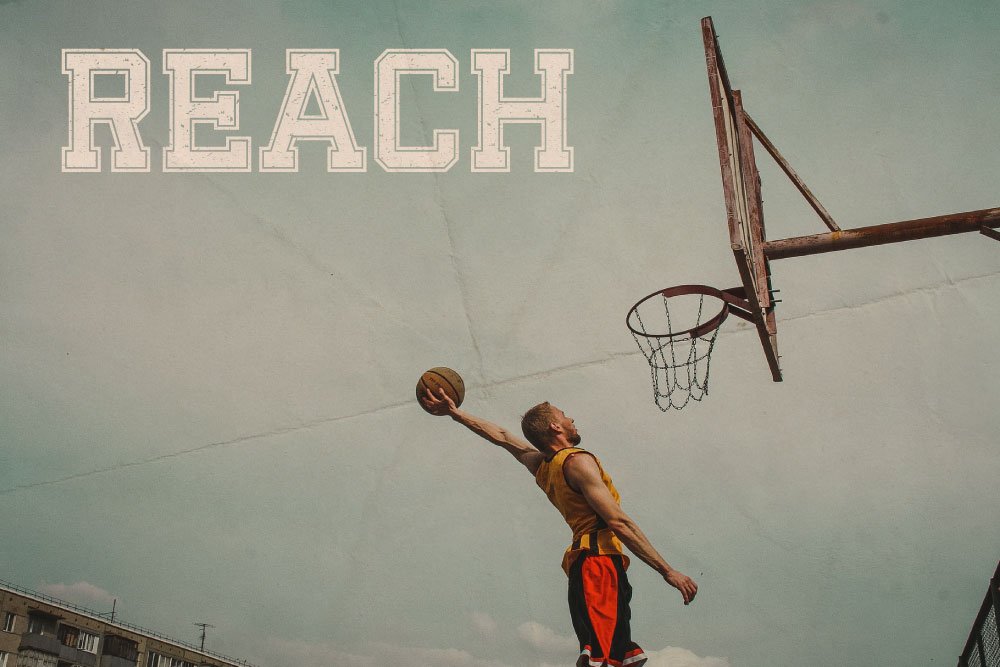
When designing templates for sports-related projects like logos, posters, and websites, the choice of font is crucial. The right font can convey energy, strength, and movement, essential qualities for sports themes. This blog explores the best fonts for sports design templates, with a focus on the font “Reach” from Salamahtype, which perfectly fits basketball and other sports. We’ll also touch on integrating urban style to add a contemporary edge to your designs.
Why Font Choice Matters in Sports Design
Fonts play a pivotal role in the overall aesthetics and effectiveness of a design. In sports design, fonts need to be bold, dynamic, and easily readable. They must capture the spirit of the sport and engage the audience at first glance. Whether it’s for a basketball logo, a sports poster, or a website, the font should enhance the visual appeal and communicate the intended message powerfully.
Key Characteristics of Good Sports Fonts
- Bold and Strong: Sports fonts should be robust and impactful to convey strength and energy.
- Readability: Even at a distance or in small sizes, the font should remain easily readable.
- Versatility: The font should work well across various mediums, from digital screens to print materials.
- Dynamic Style: Incorporating elements of motion can make the font feel more athletic and lively.
Introducing “Reach” from Salamahtype
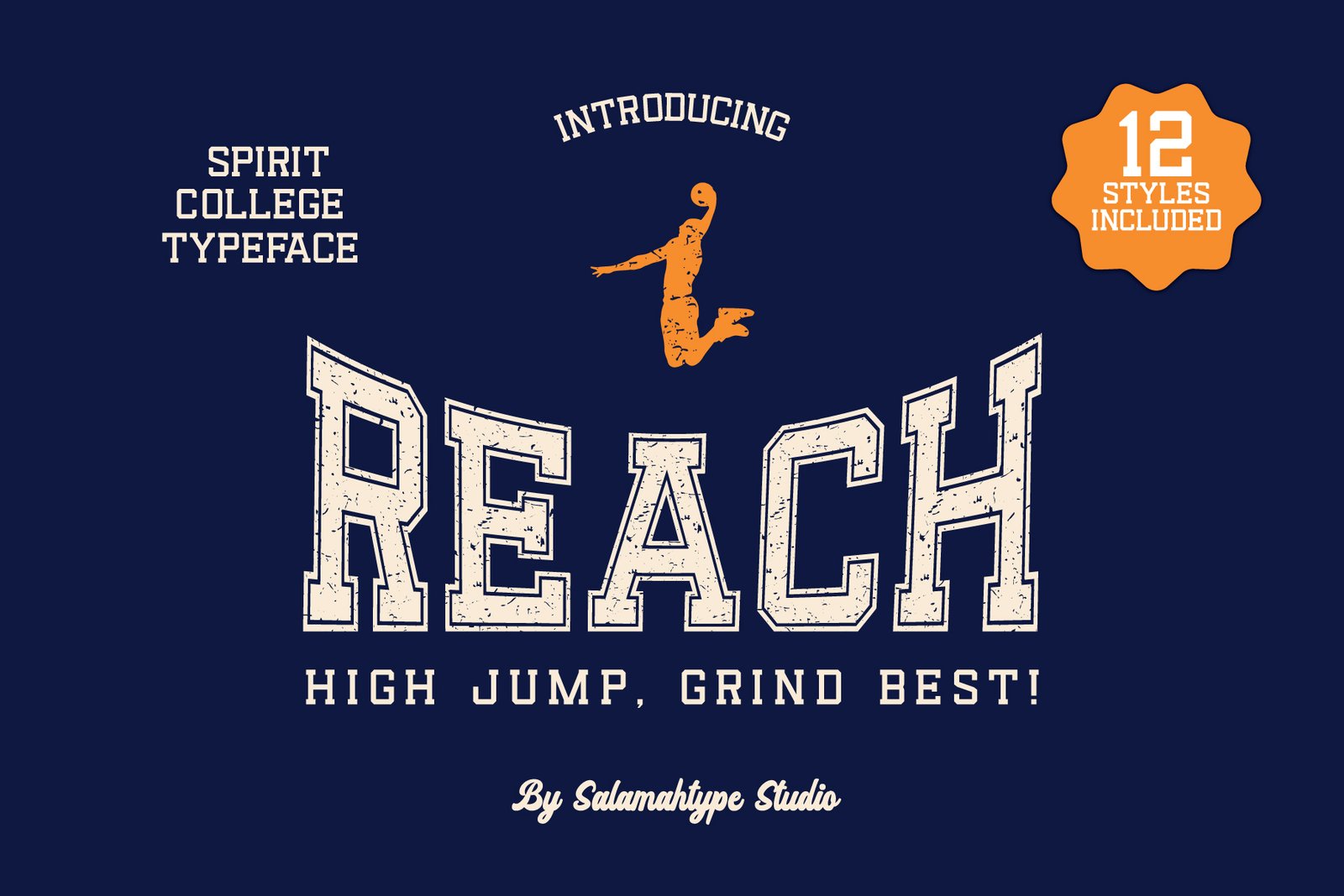
One standout font that fits perfectly into the realm of sports design is “Reach” by Salamahtype. This font embodies all the essential qualities of a great sports font:
- Bold and Dynamic: “Reach” has a powerful presence with its thick lines and sturdy structure, making it ideal for high-impact sports designs.
- Readability: Despite its boldness, “Reach” maintains excellent readability, ensuring that text is clear and accessible.
- Versatile Usage: This font is adaptable, suitable for logos, posters, and websites, providing consistency across various design elements.
- Modern Touch: “Reach” also incorporates modern design elements, making it suitable for both traditional sports themes and more contemporary, urban-inspired designs.
Applying “Reach” in Sports Designs
Basketball Logos
For a basketball logo, “Reach” can be used to create a strong and memorable brand identity. Its bold nature captures the energy and dynamism of basketball, making it perfect for team logos, event branding, or merchandise.
Sports Posters
Sports posters need to be eye-catching and informative. “Reach” can draw attention and communicate key information effectively. Pair it with dynamic images and vibrant colors to create posters that stand out.
Sports Websites
In web design, readability and visual appeal are paramount. “Reach” can be used for headers, titles, and call-to-action buttons to ensure that the website is engaging and user-friendly. Its versatility means it can seamlessly integrate with other design elements and styles.
Combining Urban Style
Urban style in sports design adds a modern, edgy feel that resonates with younger audiences and urban culture enthusiasts. Combining “Reach” with urban design elements like graffiti textures, street art visuals, and vibrant color schemes can create a unique and compelling aesthetic.
Example: Urban Basketball Poster
Imagine a poster for a street basketball event. Using “Reach” for the main headline ensures it’s bold and attention-grabbing. Incorporate graffiti-style backgrounds, urban photography, and bold color contrasts to complete the look. This combination not only attracts attention but also appeals to the urban sports community.
Choosing the right font is essential for creating impactful sports design templates. “Reach” from Salamahtype is an excellent example of a font that embodies the strength, readability, and modernity needed for sports designs. Its versatility makes it suitable for various applications, from logos to posters to websites. For more fantastic fonts that can elevate your sports designs, visit Salamahtype.
By selecting fonts that convey the energy and spirit of sports, you can create engaging and visually appealing designs that resonate with your audience and enhance your brand’s presence.